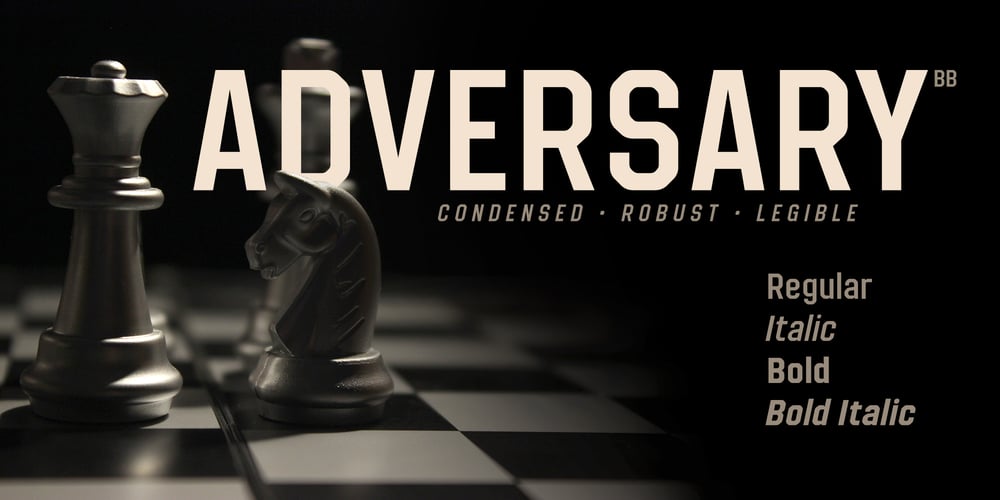
Adversary BB
Adversary BB font
Adversary BB Font Family was designed by Nate Piekos and published by Blambot. Adversary BB contains 4 styles and family package options. Blambot’s Adversary BB family is a robust sans with a hint of retro-futurism. It was initially created for use in Blambot founder, Nate Piekos’s pesonal title block for design projects. It’s therefor very clean and extremely legible. The set includes regular, italic, bold, and bold italic.